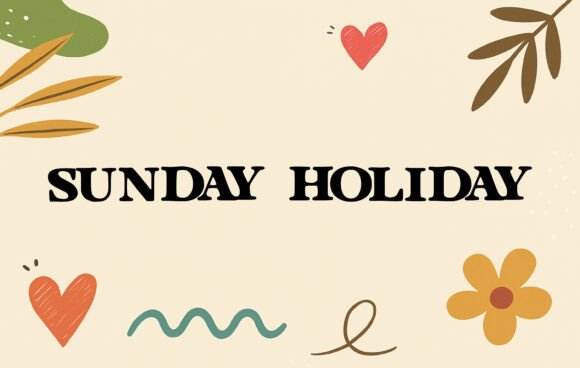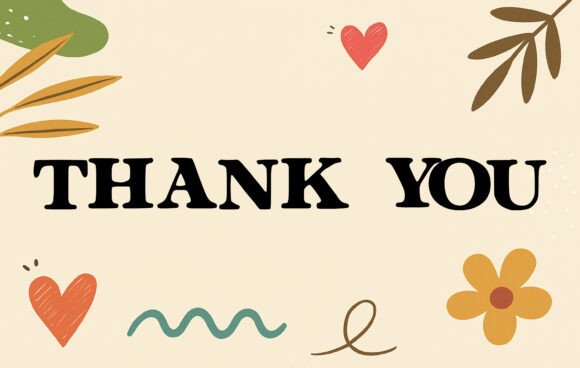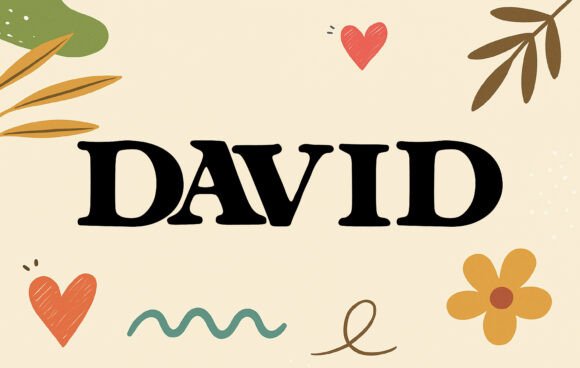
Discover the Versatility of David Font: Elevate Your Designs to New Heights
In the world of typography, a font can make or break a design. It’s the foundation upon which your creative ideas are built, and it can either elevate or detract from the overall visual appeal of your project. If you’re on the hunt for a font that can take your designs to the next level, look no further than David Font. This stunning font is designed to be a true favorite among designers and crafters, and for good reason.
Legibility and Versatility
One of the standout features of David Font is its exceptional legibility. Whether you’re using it as a title or body text, this font looks great and is easy to read. This makes it perfect for a wide range of design applications, from magazine headlines to social media posts, and from wedding invitations to t-shirts. The font’s clean lines and classic style ensure that your message is conveyed clearly and effectively, making it an excellent choice for designers who want to communicate their ideas with impact.
A World of Design Possibilities
David Font is incredibly versatile, and its uses are limited only by your imagination. Here are just a few ideas to get you started:
- Magazine Headlines: Use David Font to create eye-catching headlines that grab readers’ attention and draw them into your story.
- T-Shirts and Apparel: Design custom t-shirts, hoodies, and other apparel with David Font for a stylish and modern look.
- Social Media: Elevate your social media presence with David Font, using it to create engaging posts, stories, and graphics that stand out from the crowd.
- Branding: Establish a strong brand identity with David Font, using it consistently across all your marketing materials to create a cohesive and recognizable visual style.
- Wedding Invitations: Add a touch of elegance and sophistication to your wedding invitations with David Font, perfect for formal or informal weddings.
- Cards and Stationery: Use David Font to create beautiful cards, stationery, and other paper goods that make a lasting impression.
Why Choose David Font?
So why should you choose David Font for your design projects? Here are just a few reasons:
- Unique Style: David Font has a distinctive style that’s both modern and timeless, making it perfect for designers who want to create something truly unique.
- High-Quality Design: This font is designed to the highest standards, with clean lines, precise curves, and a level of craftsmanship that’s evident in every detail.
- Easy to Use: David Font is incredibly easy to use, with a simple and intuitive design that makes it easy to get started and achieve professional-looking results.
In conclusion, David Font is an exceptional font that’s perfect for designers and crafters who want to take their creative ideas to the highest level. With its exceptional legibility, versatility, and unique style, this font is sure to become a favorite in your design toolkit. Whether you’re working on a magazine headline, t-shirt design, or wedding invitation, David Font is the perfect choice for creating stunning designs that make a lasting impression.